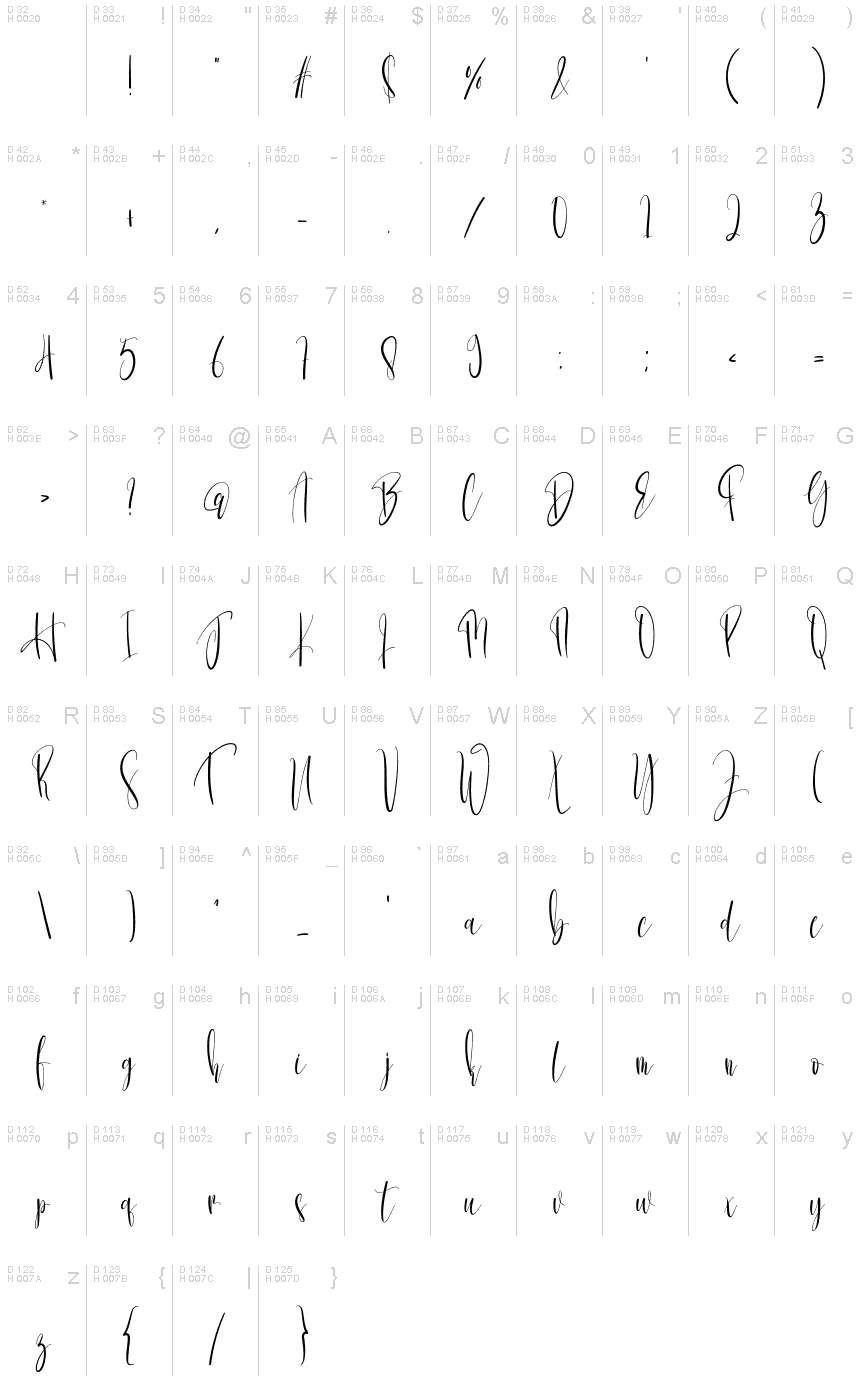
Winter
Winter, the extra-light and extra-condensed handwritten font designed by scratchones, is a versatile addition to any designer's toolkit. Its minimalistic yet distinct style is perfect for projects that demand a touch of elegance, including wedding invitations, product packaging, or social media graphics. The unique letterforms of Winter add personality and character to any design while retaining readability and legibility. This font typeface exudes creativity with its playful curves and clean lines that create a harmonious balance. With Winter, you can make your designs stand out with an eye-catching handwritten font that is both refined and charming.